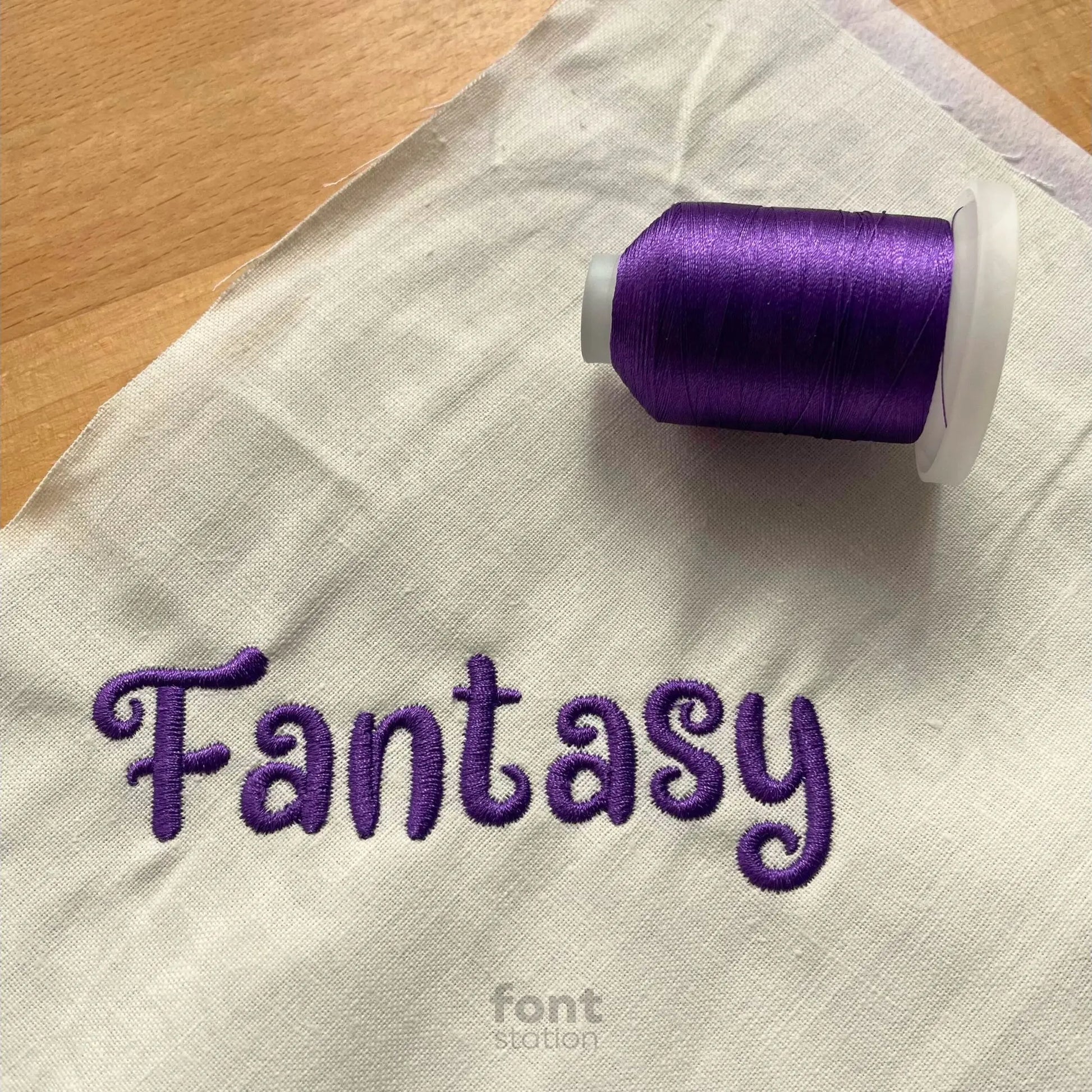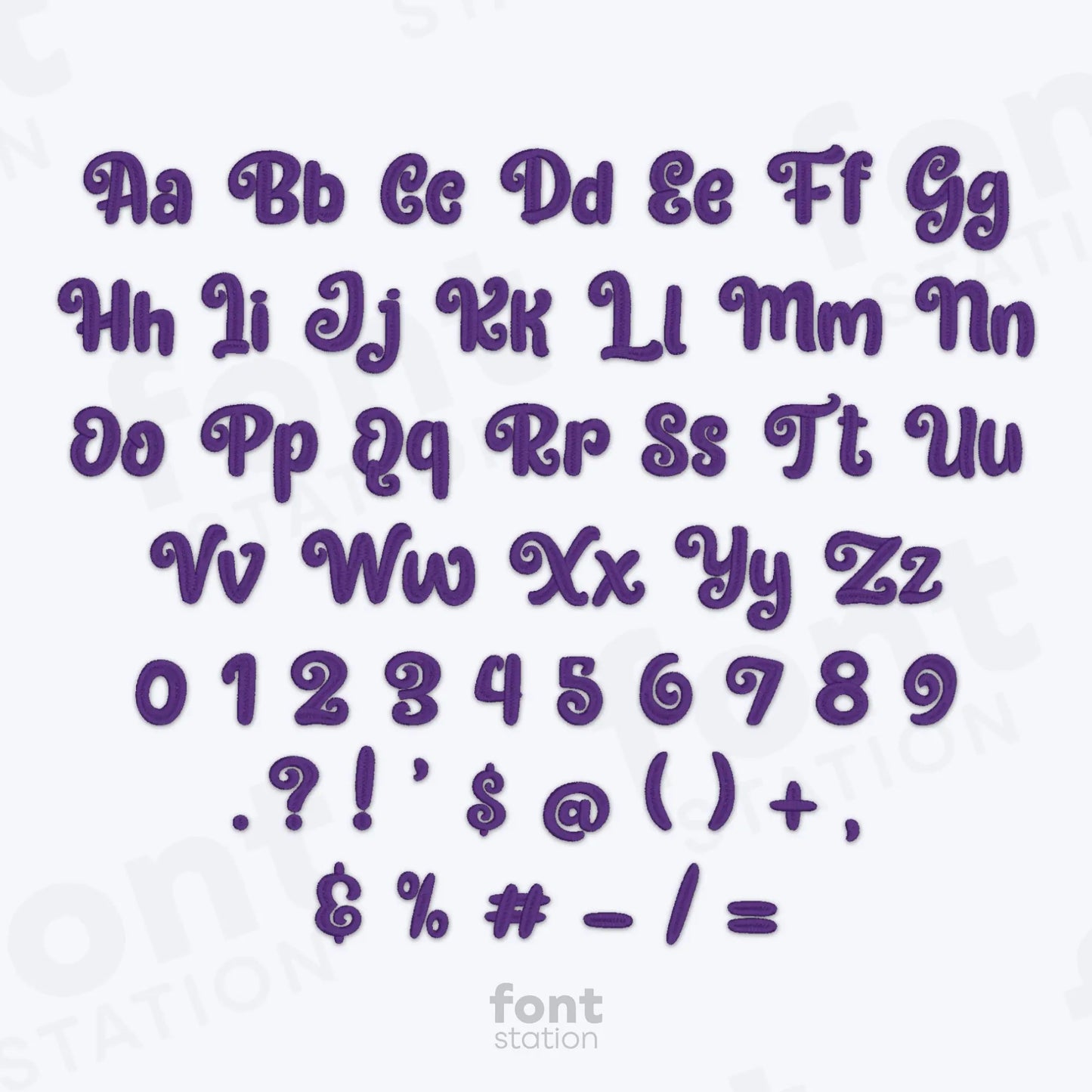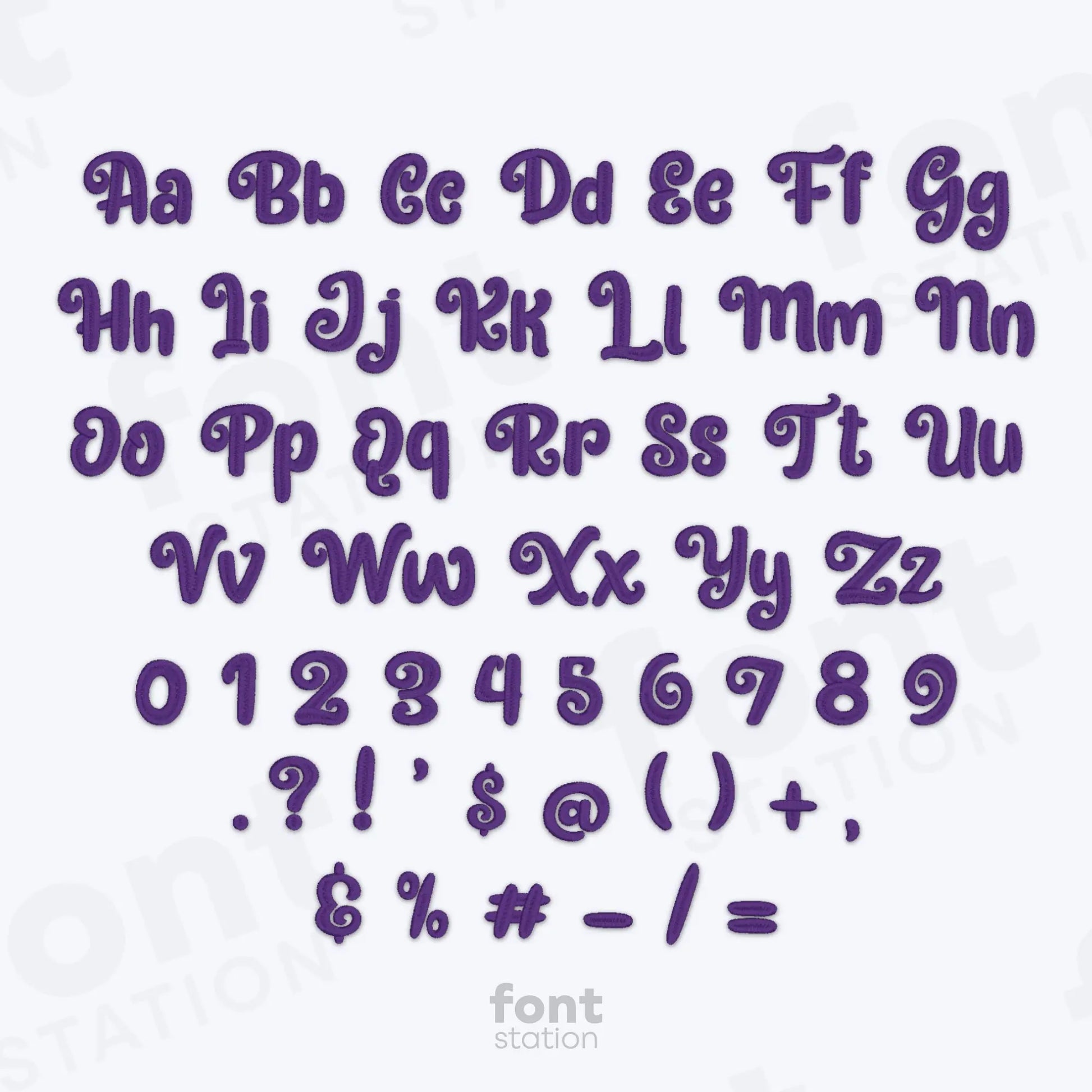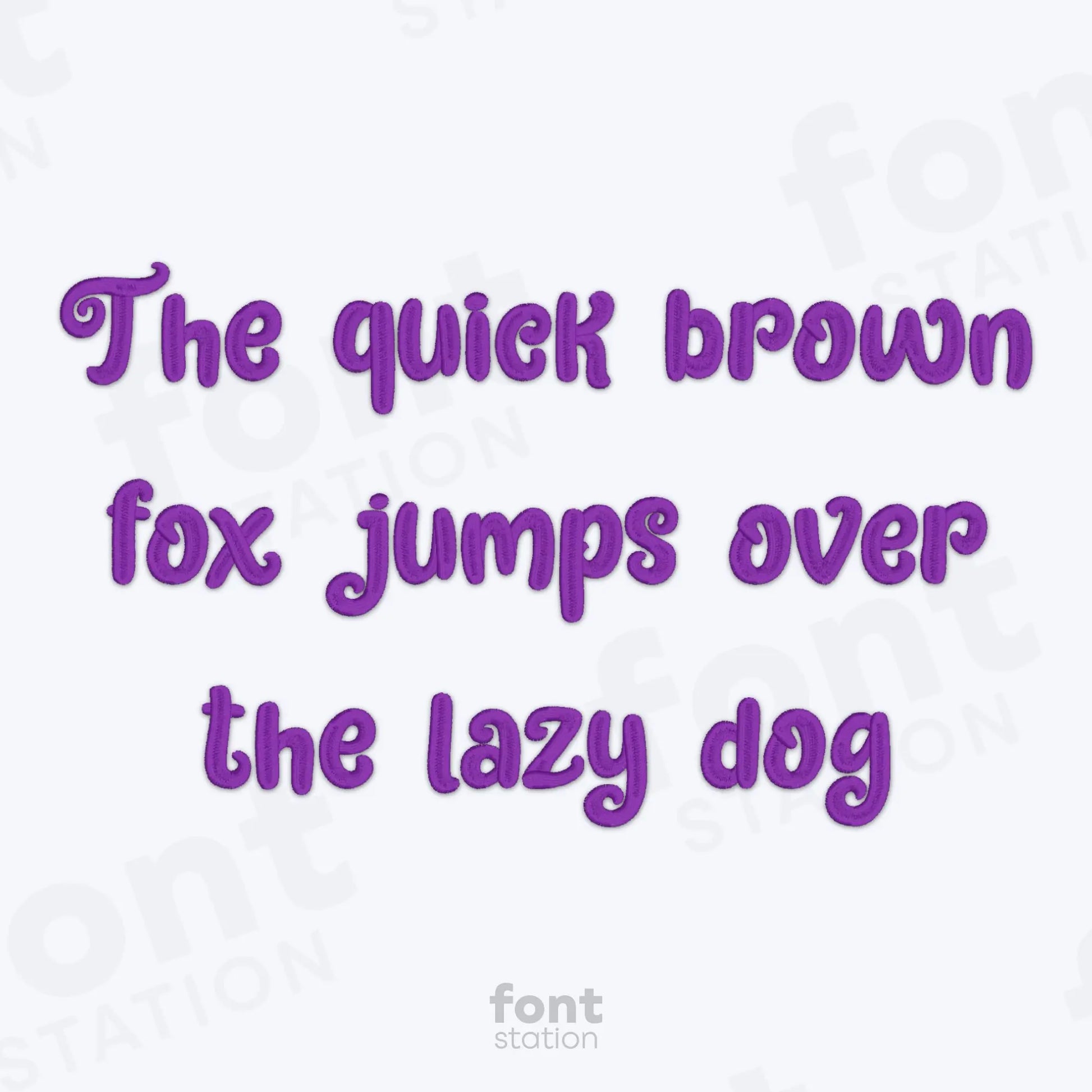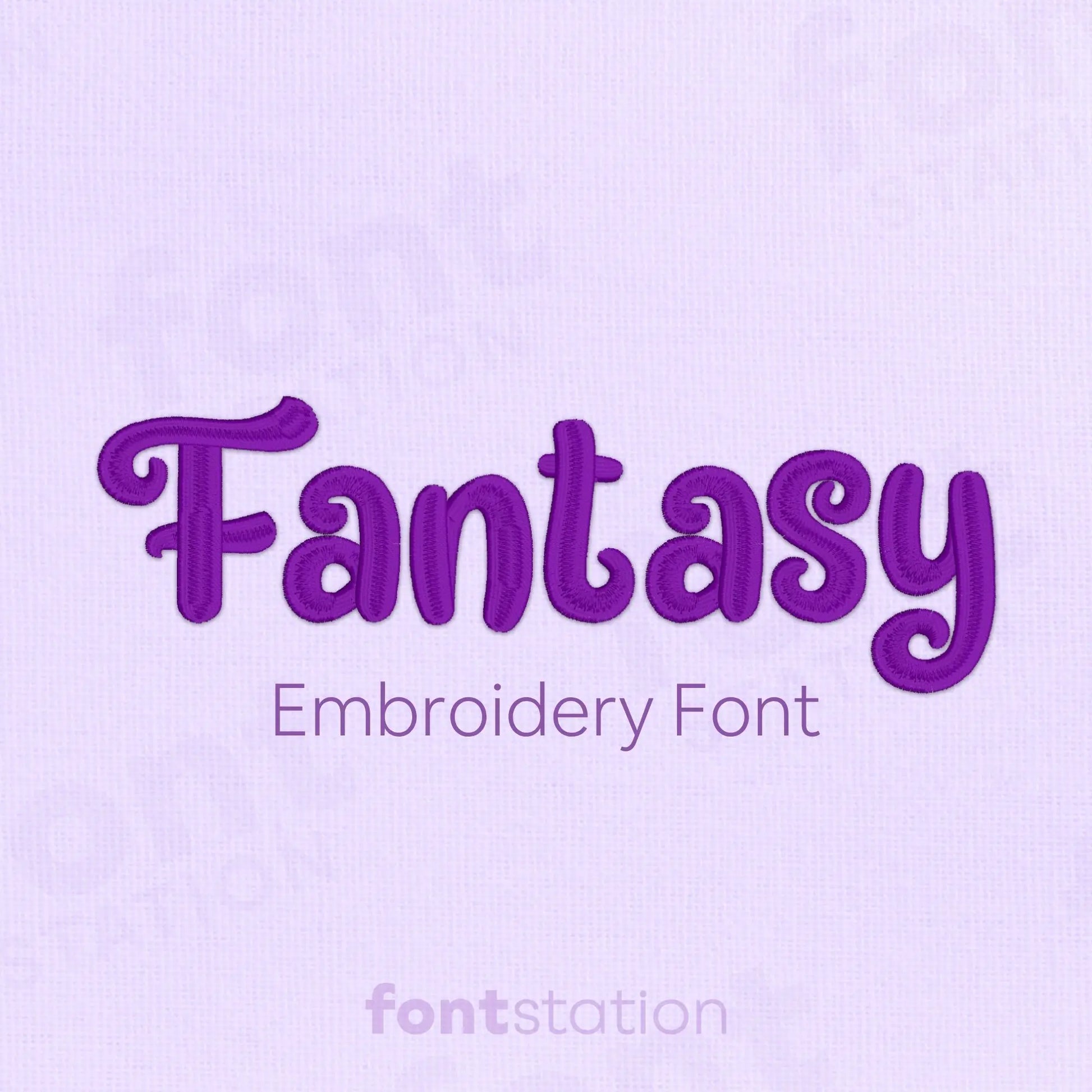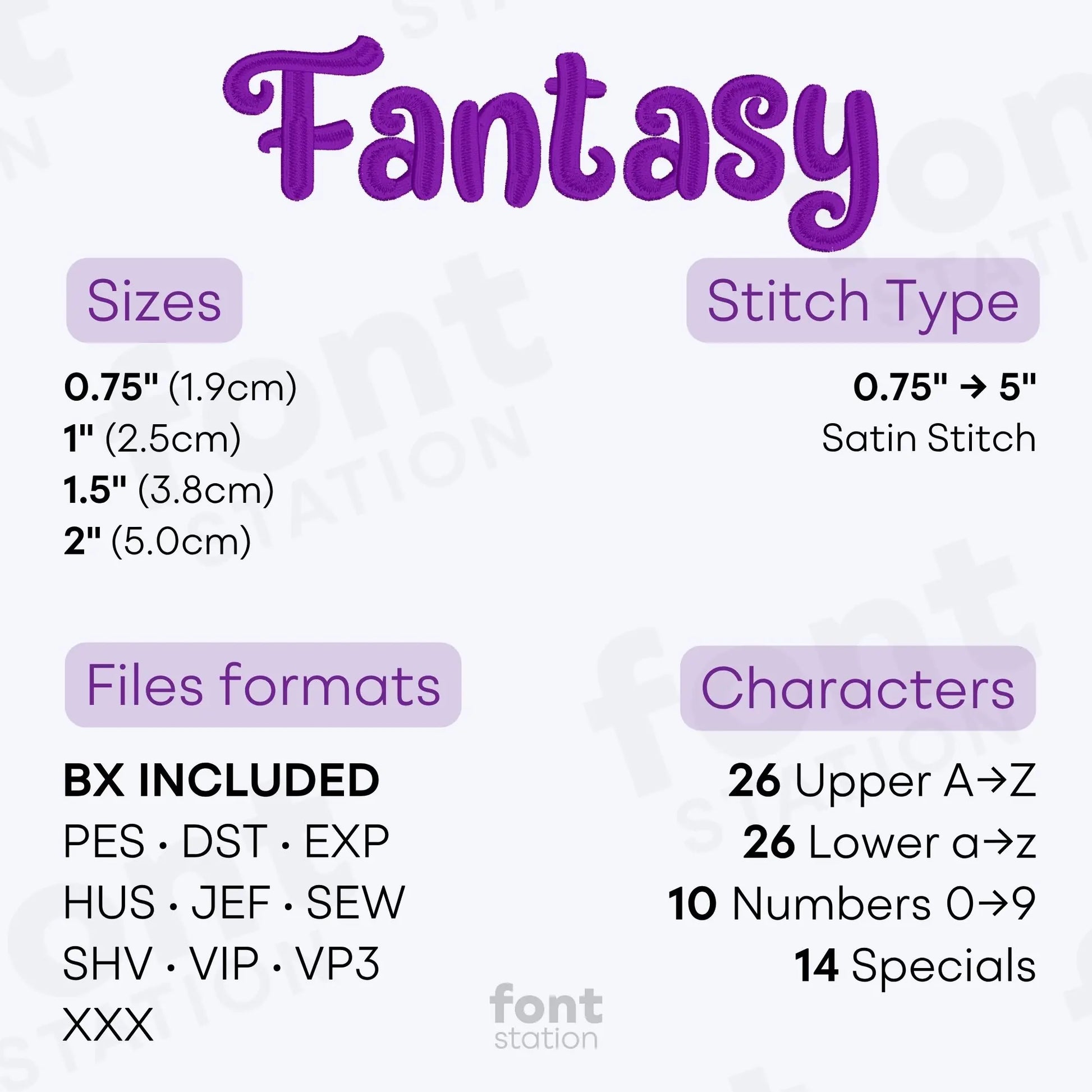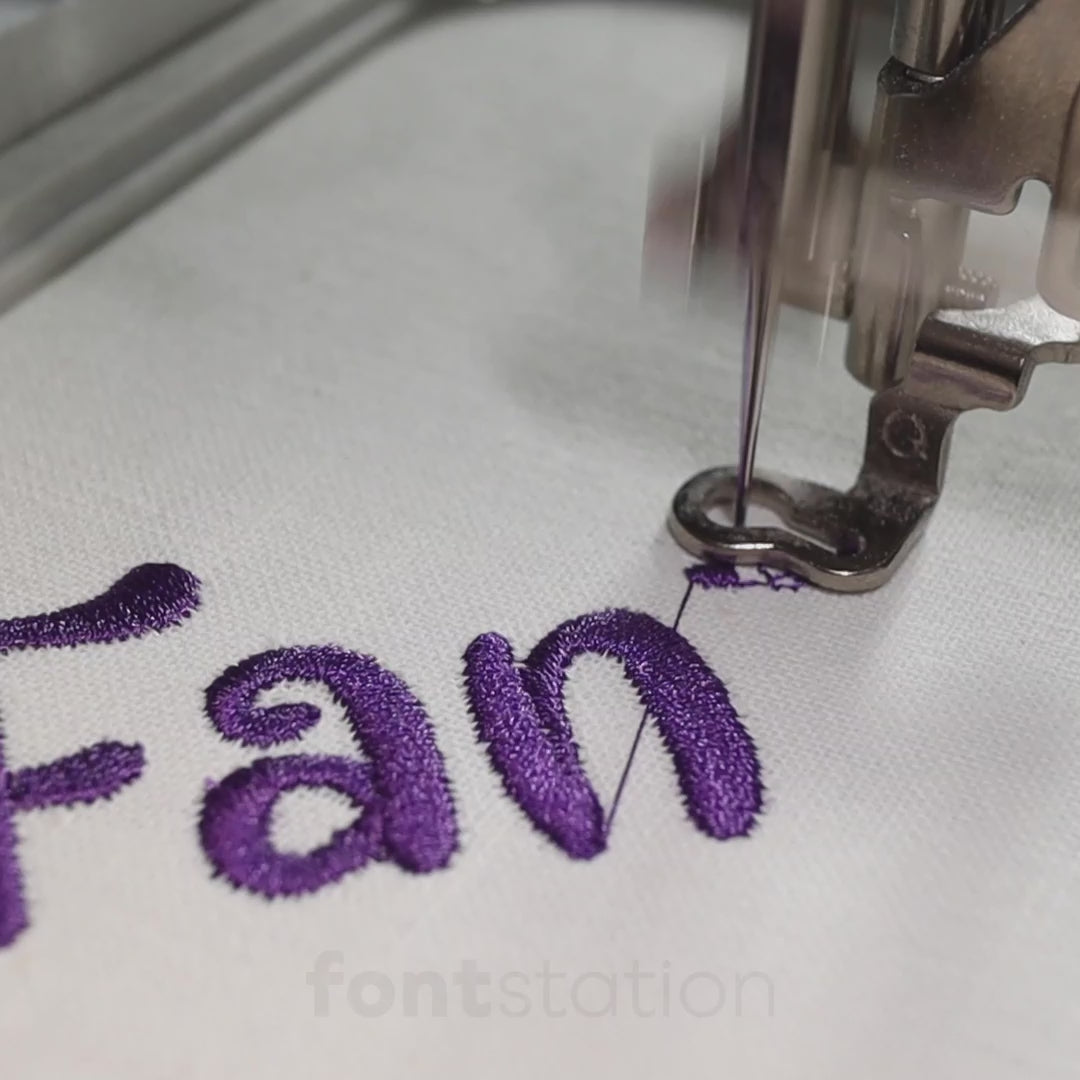
Fantasy Embroidery Font
Our Fantasy embroidery font is a magical alphabet crafted for machine embroidery. These enchanting letters add whimsy and charm to any stitched design - perfect for costumes, crafts, and fantasy-themed projects.
About the Fantasy Embroidery Font
Add a whimsical touch to your projects with our Fantasy embroidery font!
Bring a touch of magic to your embroidery with our Fairytale embroidery font. This curly, whimsical alphabet is professionally digitized for clean, crisp stitching across most fabrics. Ideal for enchanted lettering, fantasy themes, and magical-inspired designs, these machine-ready letters add charm and a magical flair to every project.